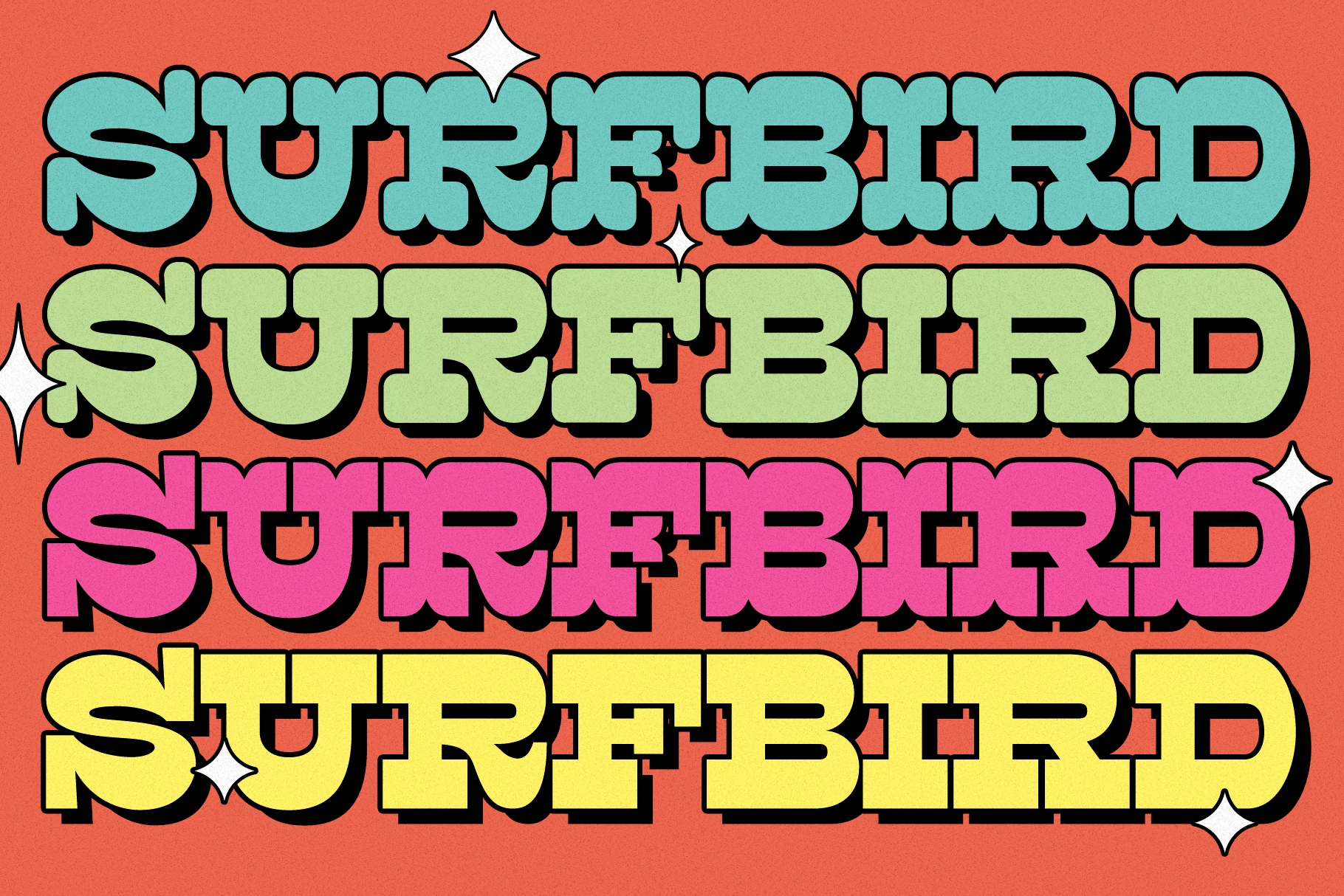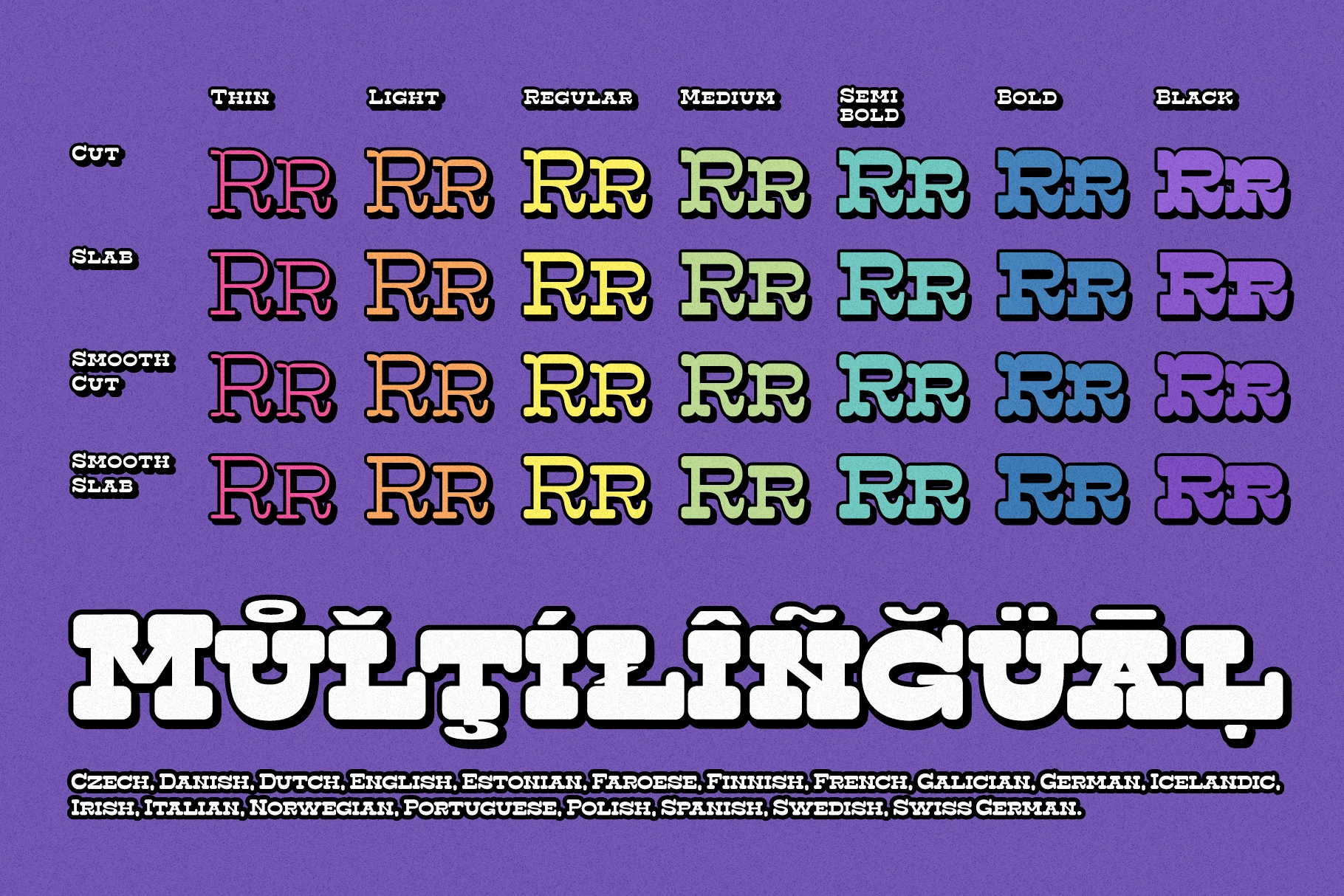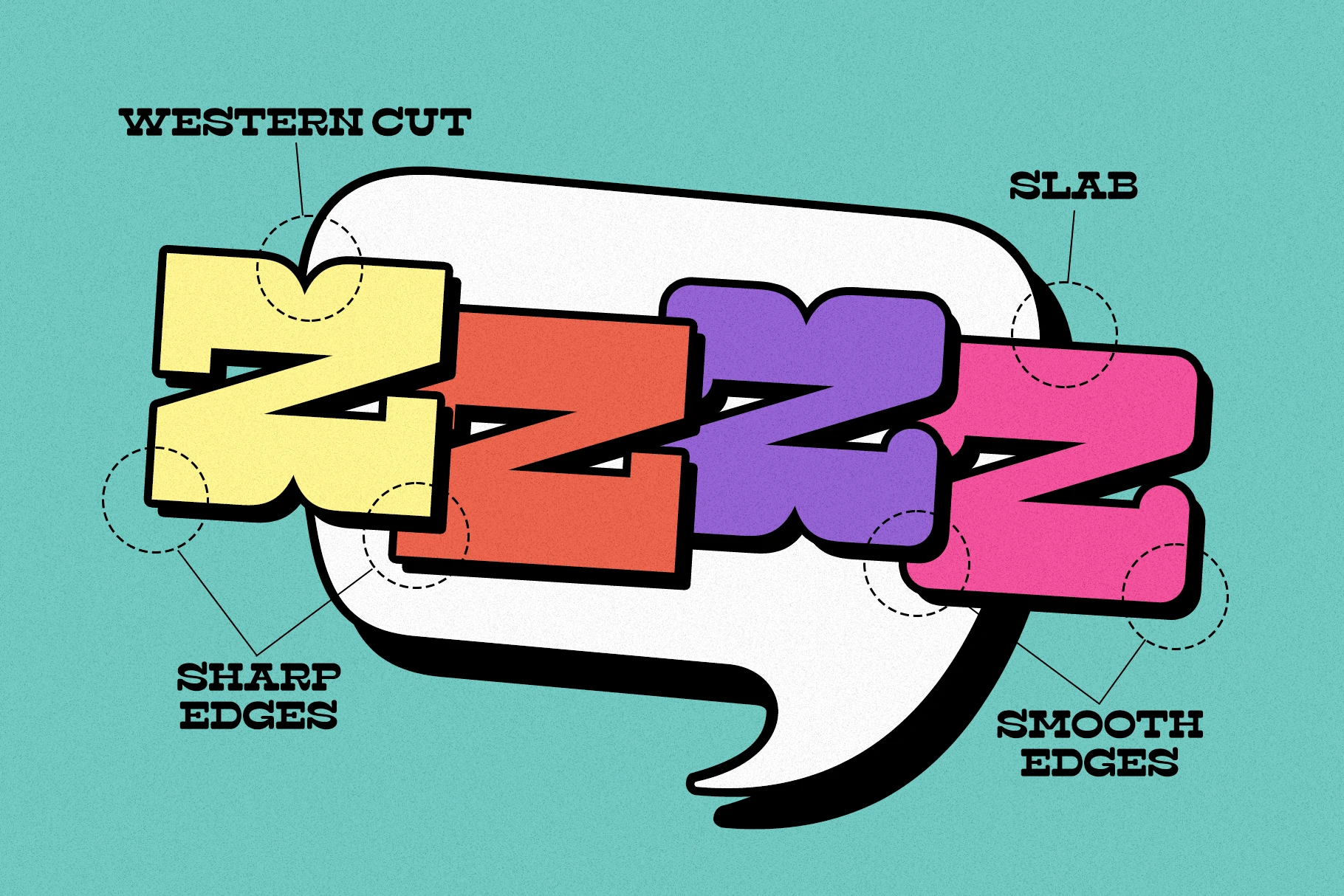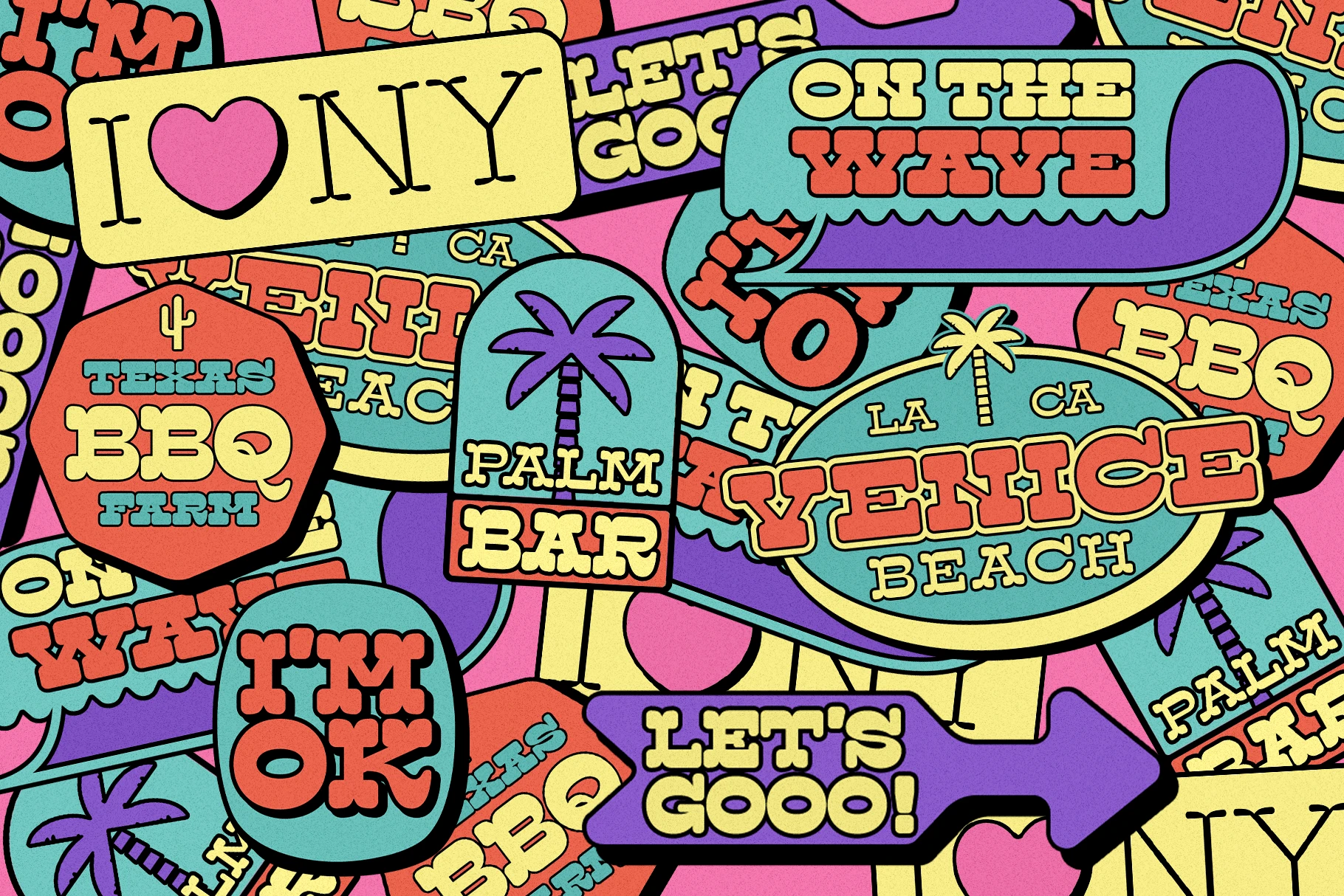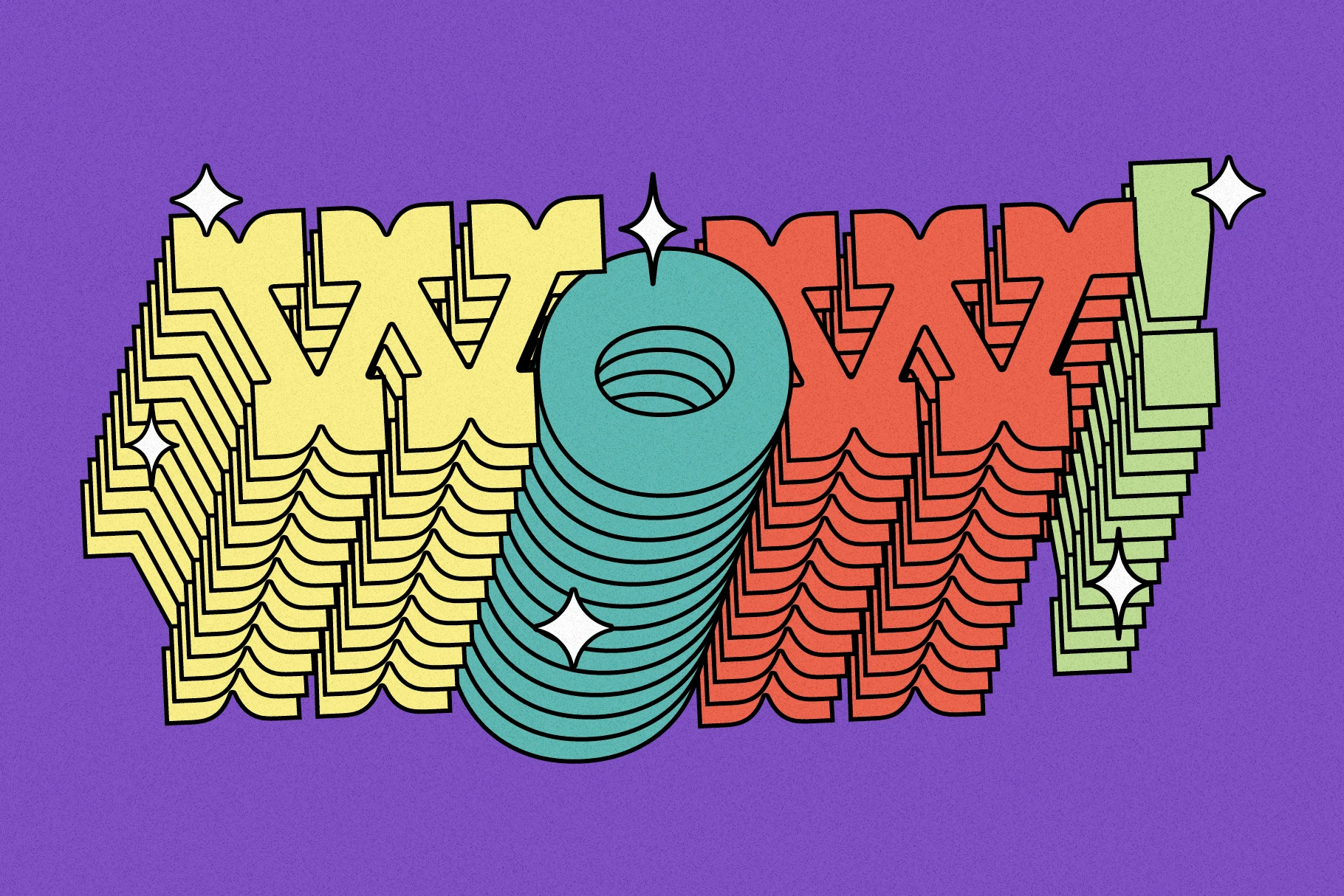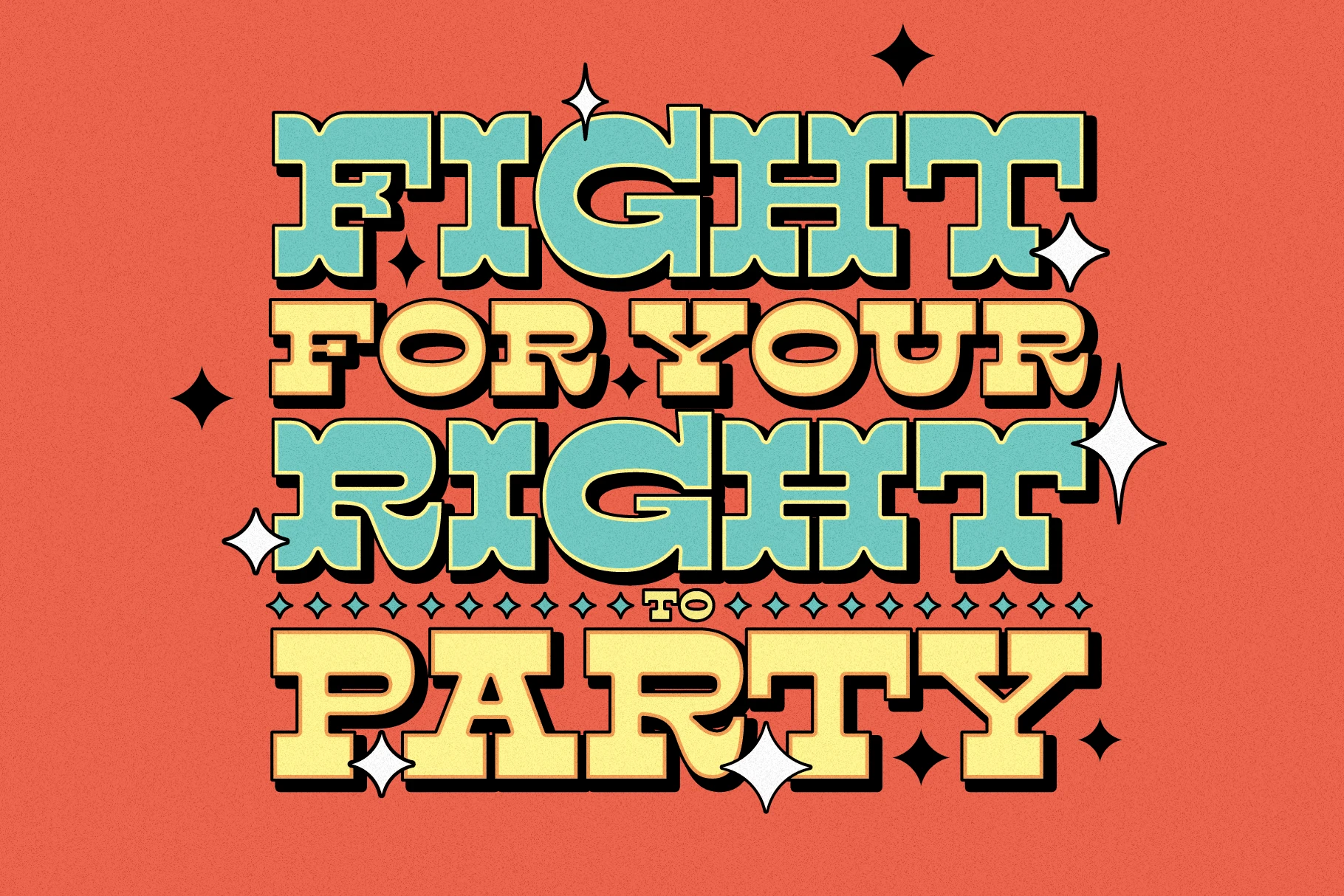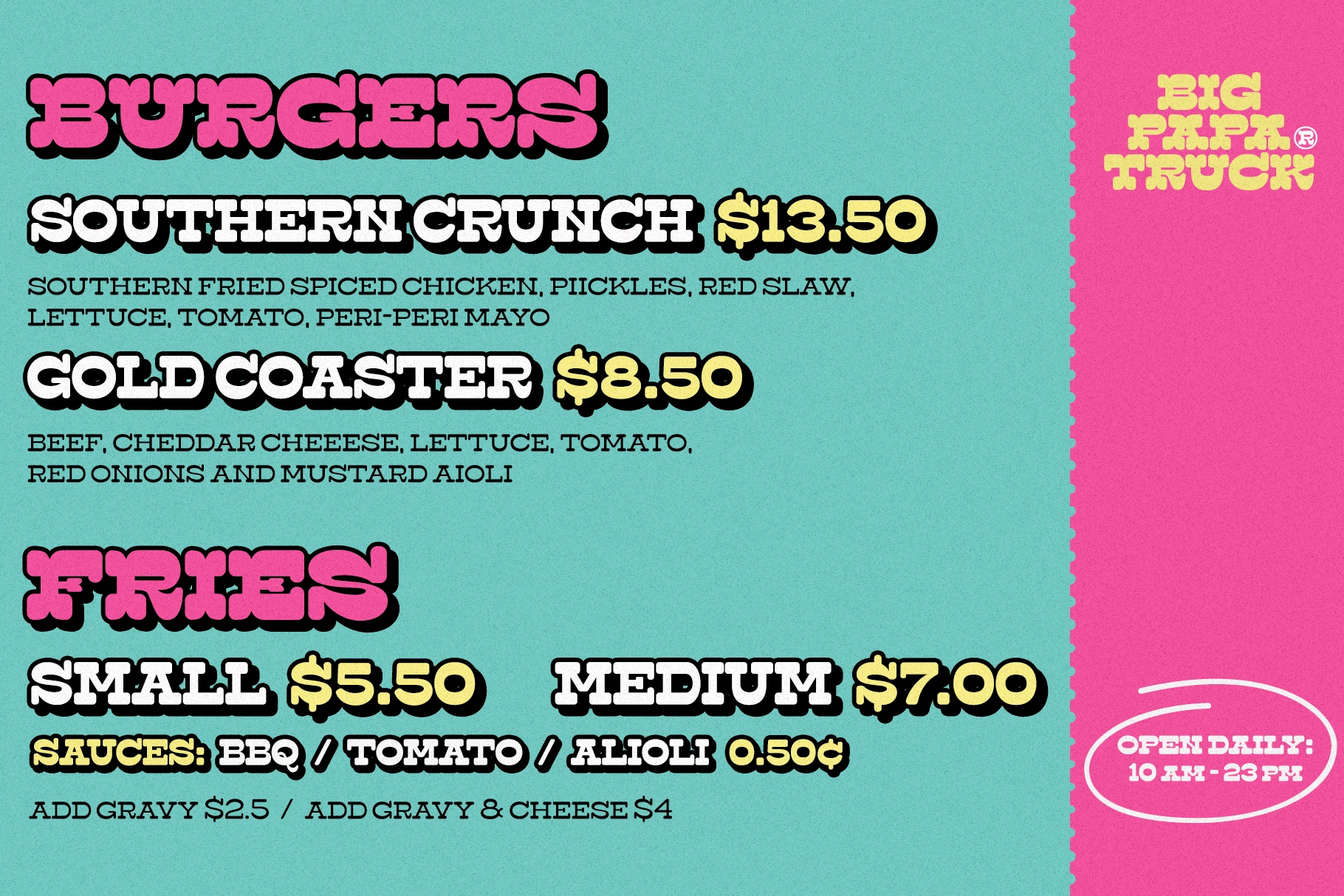
Surfbird Font Family
Surfbird is a playful display font family that blends classic western slab style with a fresh, modern attitude. It includes four font styles across seven widths, offering a wide range of design possibilities — from bold and sharp to smooth and quirky. Designed for creative versatility, it works well across home décor, mugs, t-shirts, stickers, podcast covers, menus, logos, and posters.
The family also features two graphic fonts with 82 decorative elements. One provides contour outlines, and the other offers filled versions for full-color accents. Surfbird adds personality and a lighthearted western twist to any project.